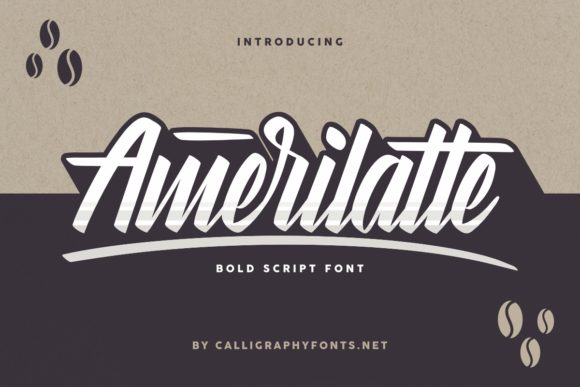
The Amerilatte Font: A Bold and Beautiful Handwritten Delight
I’ll never forget the time I was working on a wedding invitation project for a client, and I just couldn’t seem to find the perfect font. The design needed something bold, yet elegant; something that would make the invitation stand out, but still convey the sophistication and romance of the occasion. That’s when I stumbled upon the Amerilatte font, and let me tell you, it was love at first sight! 💕
Amerilatte Font Review: The Good and the Great
So, what makes Amerilatte so special? Here are some of the things I love about this beautiful font:
- ✨ Bold and stylish: Amerilatte is the perfect font for designers who want to make a statement. Its bold and stylish handwritten letters are sure to grab attention and leave a lasting impression.
- ✅ PUA encoded: The font is PUA encoded, which means you can access all of the glyphs and swashes with ease. This makes it super easy to customize and add your own personal touch to your designs.
- 💕 Perfect for wedding designs: Amerilatte looks stunning on wedding invitations, thank you cards, and other wedding-related designs. Its elegant and sophisticated vibe makes it perfect for the occasion.
- 🎉 Versatile: This font is not just limited to wedding designs. You can use it for a variety of projects, such as quotes, greeting cards, logos, business cards, and more.
Now, I’m not going to sugarcoat it – every font has its quirks and limitations. Here are a few things to keep in mind when working with Amerilatte:
- 🤔 Limited use on small text: Due to its bold nature, Amerilatte may not be the best choice for small text sizes. It’s best used for headlines, titles, or larger text elements.
- ⚠️ Some swashes may not work well in all contexts: While the PUA encoding makes it easy to access glyphs and swashes, some of these may not work well in all design contexts. Be sure to experiment and adjust as needed.
The Story Behind Amerilatte
Amerilatte was designed by a talented font designer who wanted to create a font that would capture the essence of a beautiful, handwritten script. The designer drew inspiration from classic script fonts, but with a modern twist. The result is a font that is both elegant and bold, perfect for designs that need a touch of personality and sophistication.
Q: Is Amerilatte a PUA encoded font?
A: Yes, Amerilatte is PUA encoded, which means you can access all of the glyphs and swashes with ease.
Q: Is Amerilatte a difficult font to use?
A: No, Amerilatte is a relatively easy font to use, especially with its PUA encoding and OpenType features. With a little practice, you’ll be creating beautiful designs in no time!